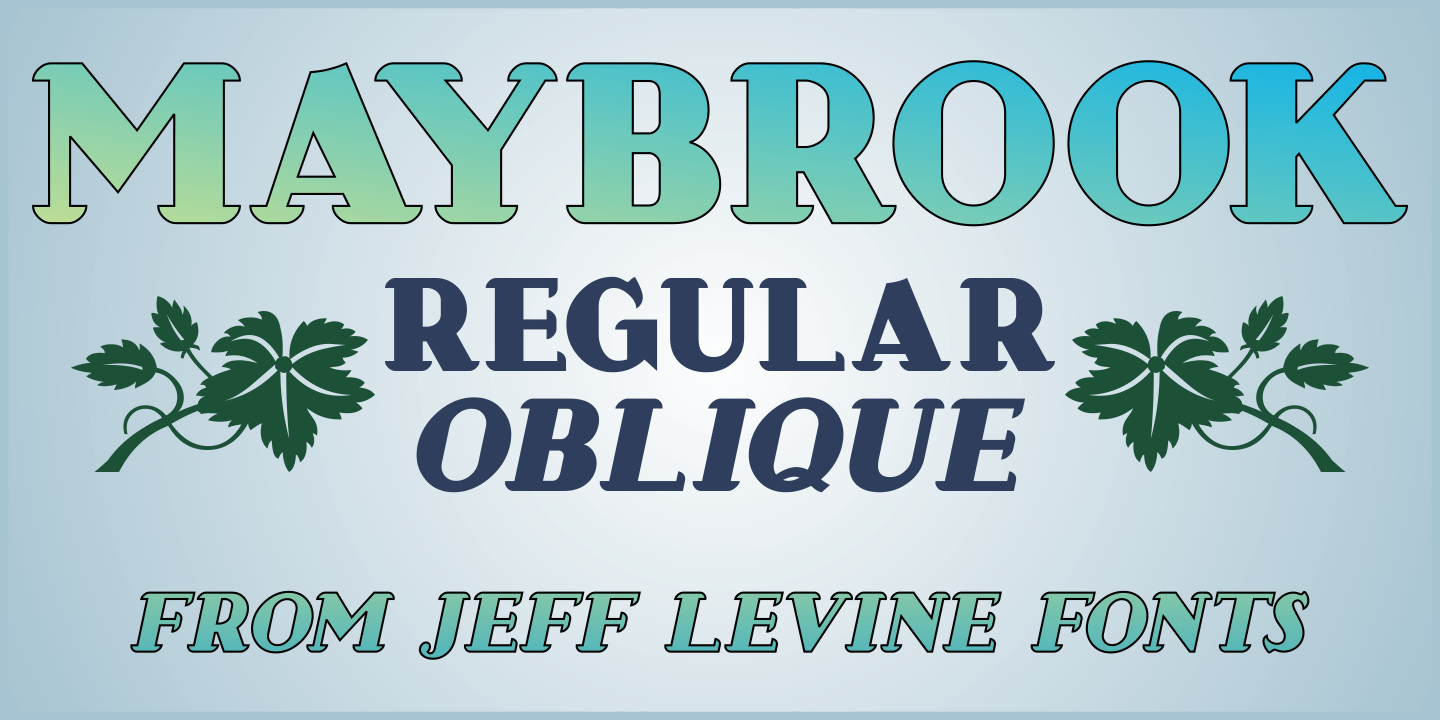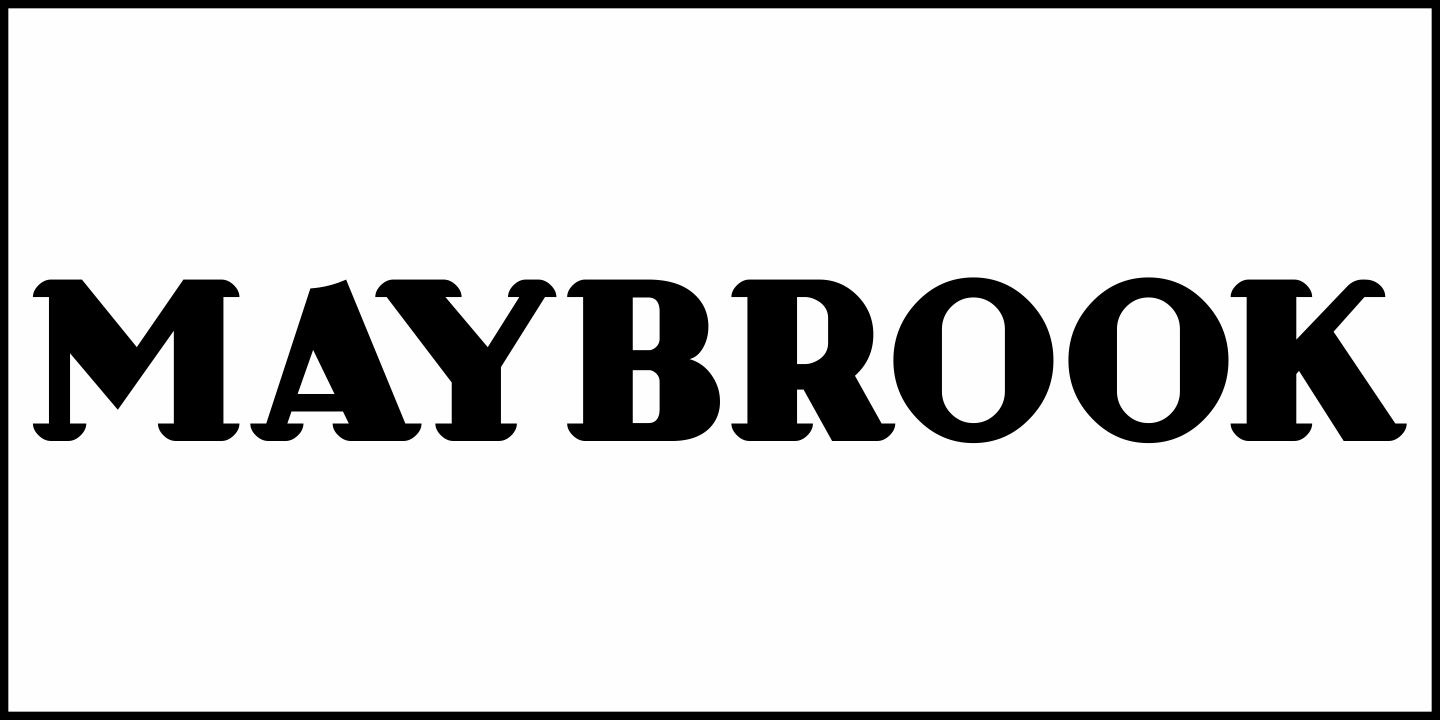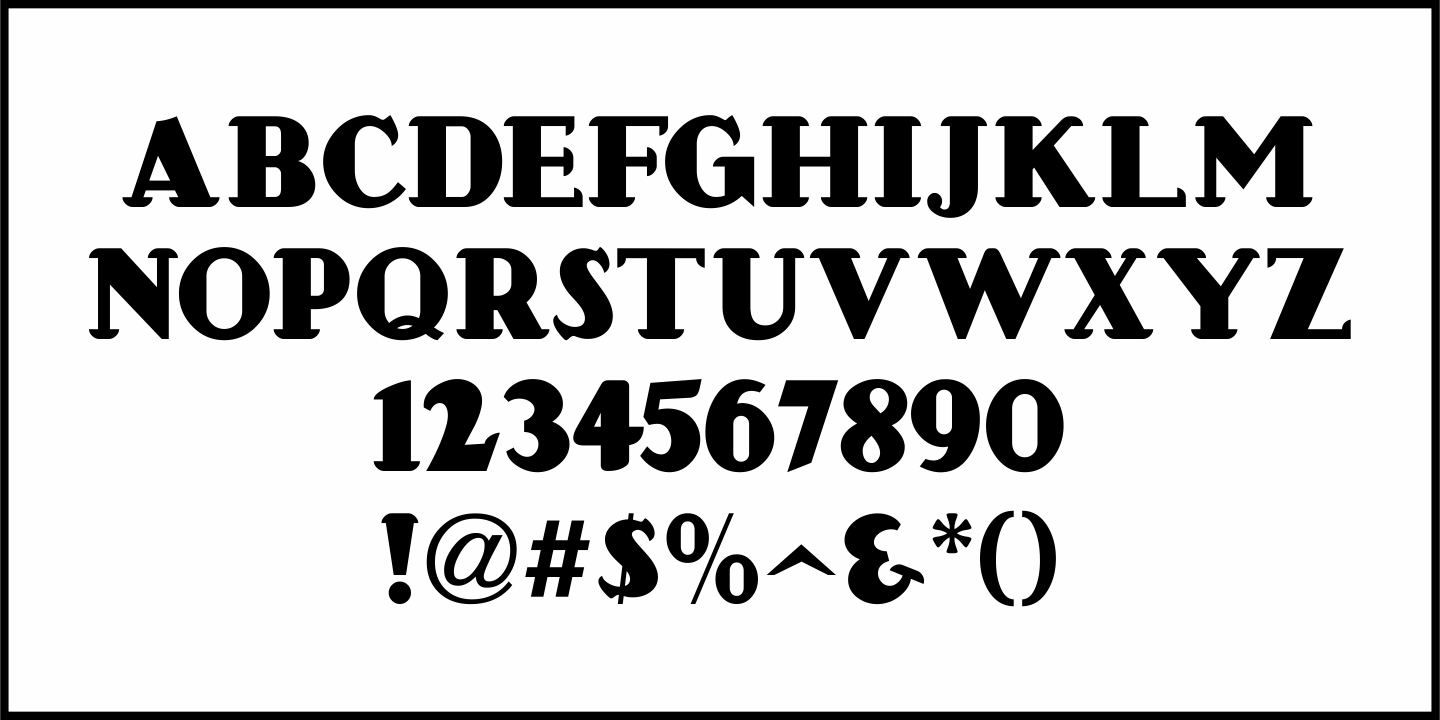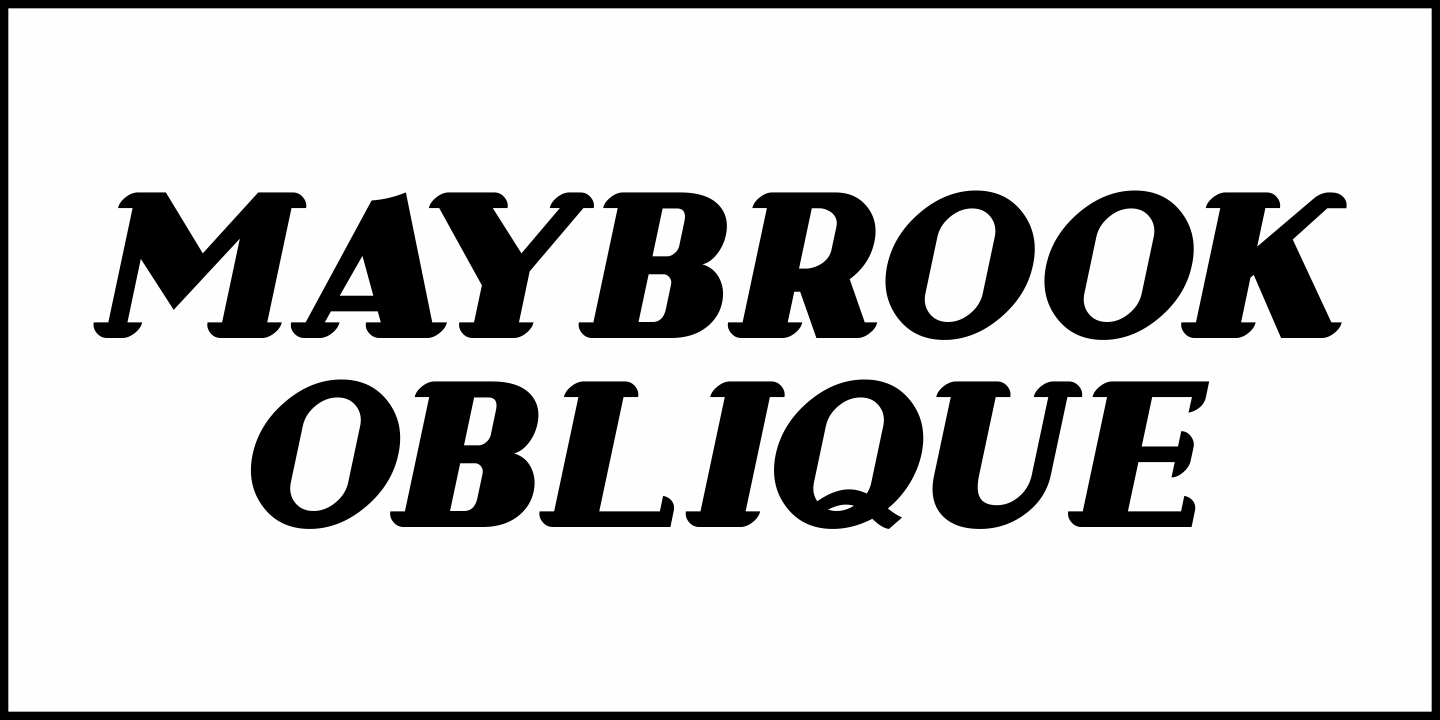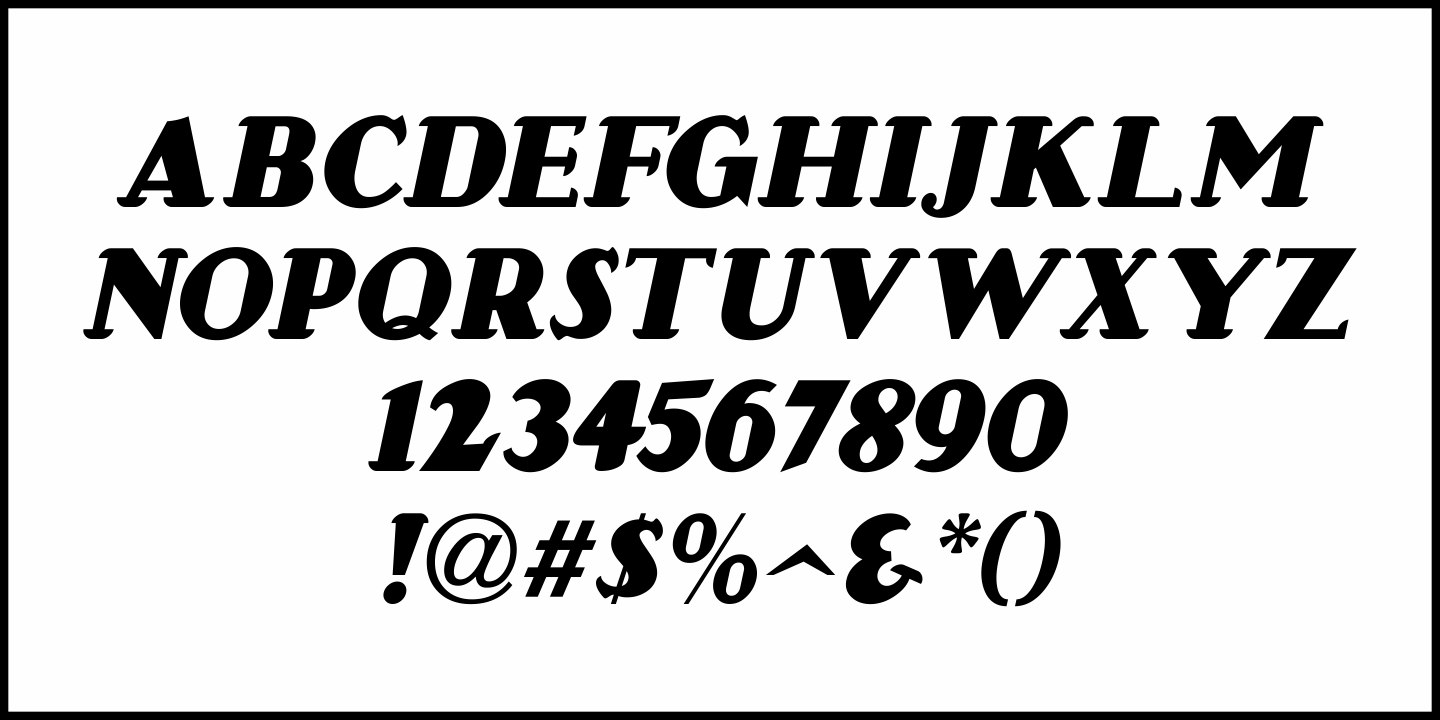
Maybrook
One of the type examples found within the pages of 'Lettering' by Harry B. Wright (1950) is a bold hand lettered serif typeface with a unique twist – the slab serifs had rounded corners, looking very much like show card lettering of the early 1900s.
This design is now available digitally as Maybrook JNL, in both regular and oblique versions.
Maybrook by Jeff Levine Fonts